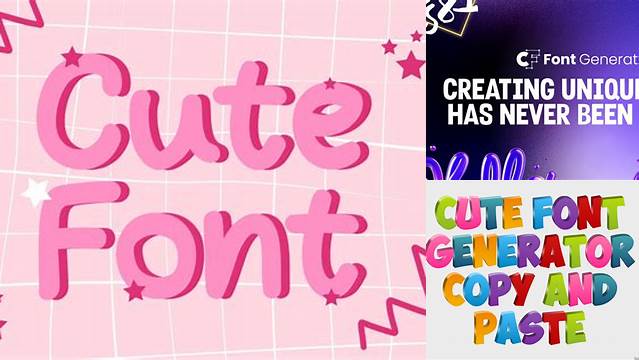
Cute Font Generator Free: Create Adorable Fonts Now
Hey guys! Are you looking to add a dash of cuteness and personality to your projects? Well, you've come to the right place! In today's digital world, where visual appeal is everything, having access to a cute font free generator can be a total game-changer. Whether you're designing a logo, creating social media graphics, or working on a presentation, the right font can make all the difference. It's like the sprinkles on a cupcake – it just makes everything better!
Why Cute Fonts Matter
Let's dive into why cute fonts are so important. Think about it: fonts are more than just letters and numbers. They have the power to evoke emotions, set a tone, and convey a message. A cute font can bring a sense of playfulness, warmth, and friendliness to your work. Imagine using a whimsical, hand-lettered font for a children's book or a bubbly, rounded font for a birthday invitation. The possibilities are endless! The impact of font choice extends beyond mere aesthetics; it influences how your audience perceives your message. For instance, a cute font in a logo can make a brand appear approachable and fun, which is crucial for businesses targeting younger demographics or those in the creative industries. Furthermore, cute fonts can enhance readability in certain contexts. They often feature clear, distinct letterforms that are easy on the eyes, making them ideal for websites and digital content aimed at diverse audiences. By leveraging the unique characteristics of cute fonts, designers and content creators can create more engaging and memorable experiences for their audience, ultimately contributing to the success of their projects.
Using a cute font can make your project stand out from the crowd. In a sea of standard, run-of-the-mill fonts, a cute and unique typeface can grab attention and leave a lasting impression. Plus, it’s a fantastic way to express your creativity and personal style. With the rise of digital media, the demand for visually appealing content has never been higher. Cute fonts offer a way to differentiate your brand or personal projects, making them more memorable and shareable. For example, a small business could use a cute font in its marketing materials to convey a sense of friendliness and approachability, which can be especially effective in competitive markets. Social media influencers and content creators also benefit from cute fonts by using them to create eye-catching graphics and captions that resonate with their audience. Moreover, the strategic use of cute fonts can reinforce brand identity, ensuring consistency across various platforms and touchpoints. This consistency helps build brand recognition and loyalty, as customers begin to associate the font style with the brand's unique personality and values. In short, cute fonts are a powerful tool for anyone looking to enhance the visual impact of their work and connect with their audience on an emotional level.
The best part? You don't have to be a design guru or spend a fortune to find the perfect font. Thanks to the plethora of cute font free generators available online, you can easily create stunning designs without breaking the bank. These tools are like having a design assistant at your fingertips, ready to help you bring your vision to life. Accessibility is a key advantage of cute font free generators. They eliminate the financial barrier that often prevents individuals and small businesses from accessing high-quality fonts. This democratization of design resources empowers a broader range of users to create professional-looking materials, regardless of their budget. Additionally, these generators often come with user-friendly interfaces, making them accessible to individuals with varying levels of design experience. Many platforms offer customization options, allowing users to adjust font size, color, and spacing, ensuring the final product aligns perfectly with their vision. The convenience of these tools extends beyond cost savings; they also save time. Instead of spending hours searching for the perfect font or hiring a designer, users can quickly generate and customize fonts within minutes. This efficiency is particularly valuable for projects with tight deadlines, where the ability to create compelling visuals quickly can be a significant advantage. In summary, cute font free generators are not just a cost-effective solution but also a powerful resource for fostering creativity and enabling anyone to create visually appealing designs.
What is a Cute Font Free Generator?
So, what exactly is a cute font free generator? Simply put, it's an online tool that allows you to create and customize fonts for free. These generators typically offer a range of options, from choosing different font styles and weights to adding special effects and decorations. It's like having a digital playground where you can experiment with different fonts until you find the one that's just right for your project. Think of these generators as your personal font laboratory, where you can mix and match elements to create something entirely unique. The beauty of these tools lies in their versatility. Whether you need a playful script for a party invitation or a bold, whimsical typeface for a website header, a cute font free generator can provide the resources you need. The customization options often include adjusting the size, spacing, and color of the font, as well as adding effects like shadows or gradients. This level of control allows you to fine-tune the font to perfectly match the aesthetic of your project. Furthermore, many generators offer previews, so you can see how the font will look in different contexts before you commit to downloading it. This feature helps ensure that the font is legible and visually appealing in its intended application. By providing a platform for experimentation and customization, cute font free generators empower users to create truly personalized designs that reflect their individual style and vision. In essence, these tools are a valuable asset for anyone looking to add a touch of creativity to their projects without the expense or complexity of traditional font design software.
These generators are incredibly user-friendly, making them accessible to everyone, regardless of their design experience. You don't need to be a graphic designer or have any special software to use them. All you need is an internet connection and a creative spark! The simplicity of cute font free generators is a significant draw for many users. The intuitive interfaces guide you through the font creation process, often with clear instructions and helpful prompts. You can typically start by selecting a base font style, such as handwritten, bubbly, or cartoonish, and then customize it to your liking. The controls are usually straightforward, with sliders and dropdown menus that allow you to adjust various aspects of the font, such as its thickness, slant, and embellishments. Some generators even offer the option to upload your own sketches or images as a starting point, adding an extra layer of personalization. The real-time preview feature is particularly helpful for beginners, as it allows you to see the impact of your changes instantly. This immediate feedback makes the design process more interactive and enjoyable, encouraging experimentation and creativity. Moreover, many cute font free generators provide access to a library of pre-designed elements, such as hearts, stars, and other decorative shapes, which can be easily incorporated into your font. This can be a great way to add a unique touch without having to create these elements from scratch. In short, the user-friendly nature of these generators makes font design accessible to a wider audience, empowering anyone to create custom fonts for their projects.
Key Features to Look For in a Cute Font Generator
When choosing a cute font generator, there are a few key features to keep in mind. First, consider the variety of font styles available. A good generator should offer a wide range of options, from playful scripts to whimsical sans-serifs. You want to make sure you have plenty of choices to suit your specific needs. The breadth of font styles available in a generator is crucial for ensuring that you can find the perfect match for your project. A diverse selection allows you to explore different aesthetics and experiment with various combinations. Look for generators that offer a mix of font categories, such as handwritten, display, serif, and sans-serif, all with a cute or whimsical flair. Within each category, there should be a range of styles, from elegant scripts to chunky, cartoon-like fonts. The ability to preview different styles side by side can be a helpful feature, allowing you to quickly compare and contrast options. Moreover, consider whether the generator offers access to decorative fonts, which often include embellishments like swirls, hearts, or stars. These fonts can add a touch of whimsy and personality to your designs, making them ideal for invitations, greeting cards, and other special occasions. A comprehensive font library ensures that you have the resources to create a wide range of designs, from subtle and sophisticated to bold and playful. By prioritizing a generator with a diverse font selection, you can enhance your creative possibilities and ensure that you always have the right font for the job.
Next, think about the customization options. Can you adjust the font size, spacing, and color? Can you add special effects like shadows or outlines? The more customization options a generator offers, the more control you'll have over the final result. The level of customization offered by a cute font generator directly impacts your ability to create truly unique designs. Look for generators that allow you to adjust the font size, weight, and letter spacing, as these basic adjustments can significantly alter the appearance of a font. The ability to change the color of the font is also essential, as it allows you to match the font to your project's color scheme. Beyond these fundamental options, consider whether the generator offers advanced customization features. The ability to add shadows, outlines, or gradients can give your fonts a three-dimensional or textured appearance. Some generators even allow you to adjust the kerning (the space between individual letters) and the leading (the space between lines of text), which can be crucial for ensuring readability and visual appeal. If you're looking to create a truly unique font, consider generators that allow you to upload your own graphics or symbols to incorporate into the design. The more control you have over the details of the font, the better equipped you'll be to create a design that perfectly reflects your vision. In short, comprehensive customization options are a hallmark of a high-quality cute font generator, empowering you to create fonts that are both beautiful and functional.
Finally, consider the ease of use. A good cute font generator should be intuitive and straightforward, even for beginners. Look for a generator with a clean interface and clear instructions. You don't want to spend hours trying to figure out how to use the tool! The user-friendliness of a cute font generator is a crucial factor, especially for those who are new to font design. An intuitive interface and clear instructions can significantly reduce the learning curve, allowing you to focus on your creativity rather than struggling with the software. Look for generators that feature a clean, uncluttered layout with well-organized menus and controls. The most important features should be easily accessible, and the steps for creating a font should be logical and straightforward. A helpful feature to look for is a real-time preview, which allows you to see the impact of your changes instantly. This can be a great way to experiment with different styles and settings without having to guess what the final result will look like. Many generators also offer tutorials or help sections that provide step-by-step guidance on using the tool. These resources can be particularly valuable for beginners, offering tips and tricks for creating effective font designs. If you're planning to use the generator frequently, consider whether it offers features like templates or pre-designed elements, which can streamline the design process and save you time. In short, a user-friendly cute font generator empowers you to create beautiful fonts quickly and easily, regardless of your design experience.
Top Cute Font Free Generators Online
Now that you know what to look for, let's explore some of the top cute font free generators available online. Here are a few of my favorites:
FontStruct: FontStruct is a fantastic option for creating geometric fonts. It's like building with digital Lego bricks! FontStruct stands out as a versatile platform for crafting unique fonts using a geometric approach. This generator allows you to construct fonts from a set of predefined shapes, often referred to as "bricks," which can be arranged and combined to create letters, numbers, and symbols. This method is particularly well-suited for designing fonts with a modern or futuristic aesthetic, but it can also be used to create cute and playful fonts with a distinctive style. The interface is intuitive and user-friendly, making it accessible to both beginners and experienced designers. FontStruct offers a range of tools and features that allow for precise control over the design process, including the ability to adjust the size, position, and orientation of the geometric elements. The platform also supports the creation of custom shapes, allowing for even greater flexibility and creativity. One of the key advantages of FontStruct is its collaborative community. Users can share their creations, provide feedback, and even remix existing fonts, fostering a culture of learning and innovation. This collaborative environment makes FontStruct not just a font generator but also a valuable resource for inspiration and support. Moreover, FontStruct offers various export options, allowing you to download your fonts in different formats for use in a wide range of applications. Whether you're designing a logo, creating a website, or working on a print project, FontStruct provides the tools and resources you need to bring your font ideas to life. In summary, FontStruct's geometric approach, user-friendly interface, and collaborative community make it a top choice for anyone looking to create distinctive and cute fonts.
Calligraphr: If you want to turn your own handwriting into a font, Calligraphr is the perfect tool. It's like magic! Calligraphr offers a unique and incredibly personal approach to font creation by allowing you to transform your own handwriting or drawing into a usable font. This platform is perfect for adding a touch of authenticity and individuality to your projects, making it ideal for invitations, thank you notes, branding materials, and more. The process is simple yet powerful. You start by downloading a template from Calligraphr, which provides a grid for each character you want to include in your font. You then fill in the template with your handwriting, using a pen, marker, or even a digital stylus. Once you've completed the template, you upload it to Calligraphr, and the platform automatically converts your handwriting into a font file. The result is a font that is truly unique, capturing the nuances and quirks of your personal handwriting style. Calligraphr offers a range of customization options to refine your font, including the ability to adjust the size, spacing, and alignment of characters. You can also add ligatures (connecting strokes between letters) to enhance the flow and readability of your font. The platform supports multiple languages and character sets, making it versatile for a wide range of applications. One of the standout features of Calligraphr is its ability to incorporate drawings and symbols into your font. This opens up creative possibilities for adding decorative elements, logos, or other unique touches to your designs. The free version of Calligraphr allows you to create a limited number of characters, while the paid version offers unlimited character creation and additional features. Whether you're a designer looking to expand your font library or an individual wanting to add a personal touch to your correspondence, Calligraphr provides a user-friendly and effective way to create custom fonts that reflect your unique style. In short, Calligraphr's ability to transform handwriting and drawings into fonts makes it a standout option for anyone seeking a personalized and cute font solution.
BirdFont: BirdFont is a free, open-source font editor that's packed with features. It's a great choice for more advanced users who want to dive deep into font design. BirdFont distinguishes itself as a free and open-source font editor that offers a comprehensive set of tools for both beginners and experienced font designers. This platform provides a robust environment for creating and editing fonts, with a focus on precision and control. Unlike some other online font generators that offer a more simplified approach, BirdFont allows you to delve deep into the technical aspects of font design, giving you the power to create highly customized and professional-quality typefaces. The interface of BirdFont is designed to be efficient and intuitive, with a clear layout of tools and panels. You can create glyphs (individual characters) using a variety of drawing tools, including Bezier curves, which allow for smooth and precise shaping. The platform supports multiple font formats, including TTF, EOT, and SVG, ensuring compatibility with a wide range of applications and platforms. BirdFont offers advanced features such as kerning (adjusting the space between letters), hinting (optimizing fonts for different screen resolutions), and OpenType feature support, which allows you to add ligatures, contextual alternates, and other typographic enhancements. The open-source nature of BirdFont means that it is constantly being updated and improved by a community of developers, ensuring that you have access to the latest features and bug fixes. This also means that there is a wealth of online resources and tutorials available to help you learn how to use the software effectively. BirdFont is particularly well-suited for designers who want to create fonts for commercial use, as it provides the necessary tools and features to produce high-quality, professional typefaces. Whether you're designing a cute and playful font or a more serious and sophisticated typeface, BirdFont offers the flexibility and control you need to bring your vision to life. In summary, BirdFont's combination of powerful features, open-source nature, and active community make it an excellent choice for those looking to create fonts with precision and control.
These are just a few examples, but there are many other fantastic cute font free generators out there. Take some time to explore and find the one that works best for you.
Tips for Creating Awesome Cute Fonts
Ready to start creating your own cute fonts? Here are a few tips to help you along the way:
- Think about your target audience: Who are you creating this font for? A children's book? A wedding invitation? Keeping your audience in mind will help you choose the right style and tone.
- Experiment with different styles: Don't be afraid to try new things! Play around with different shapes, sizes, and decorations to see what you can create.
- Keep it readable: While cute is important, readability is key. Make sure your font is easy to read, even at small sizes.
- Use reference materials: Look at other cute fonts for inspiration. What do you like about them? What can you learn from them?
- Practice, practice: The more you create fonts, the better you'll get. Don't get discouraged if your first few attempts aren't perfect.
Creating cute fonts is a fun and rewarding way to express your creativity. With the help of a cute font free generator, you can easily add a touch of personality to your projects and make them truly stand out. So, what are you waiting for? Go ahead and unleash your inner font designer! Remember, the world needs more cute fonts, and you're just the person to create them. Happy font-making, guys!